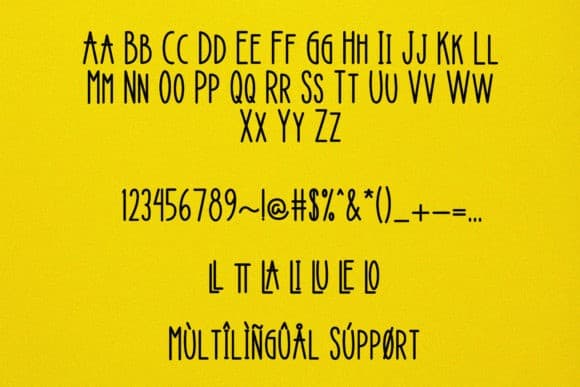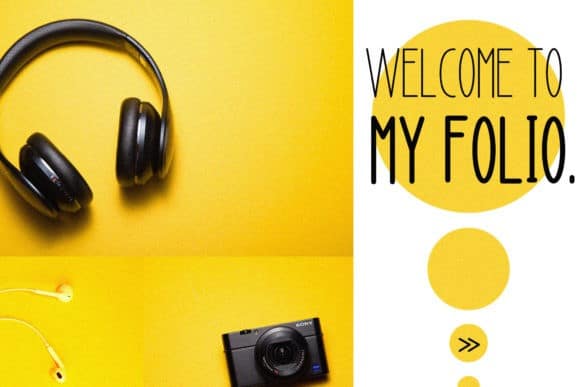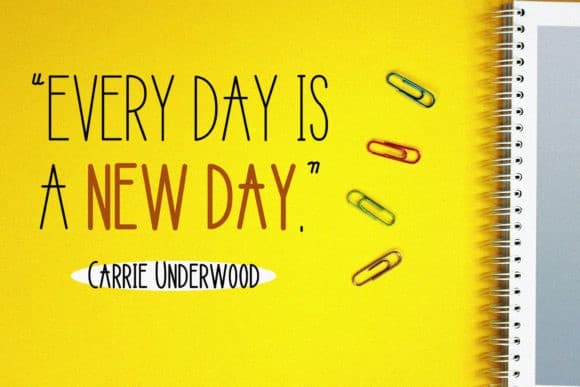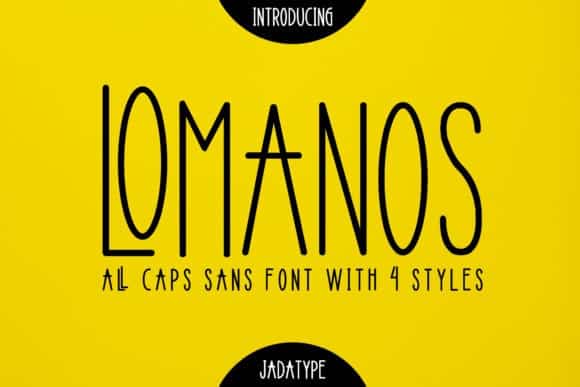
Lomanos Sans Serif Font
Presenting Lomanos Sans Serif Font. It’s a beautiful and elegant Thin Condensed lettered sans serif font perfect for crafting all your wedding designs. It’s a thin lettered sans serif font. No matter the topic, this font will be an incredibly asset to your fonts’ library, as it has the potential to elevate any creation. It’s also perfect for that feminine and delicate look that you want in your invitations, wedding albums, website, etc.